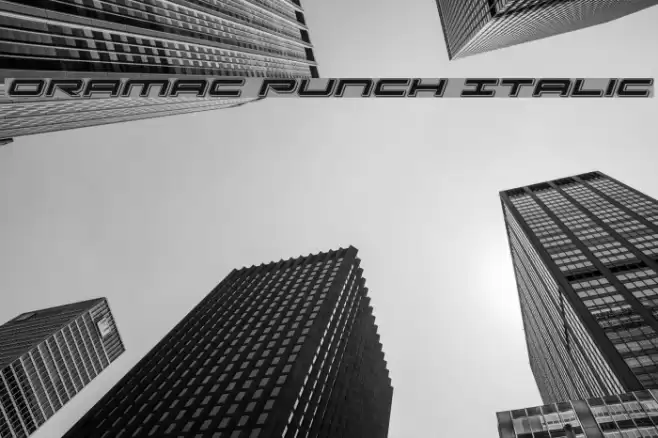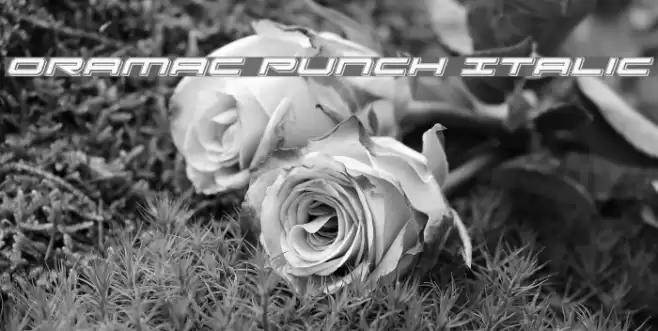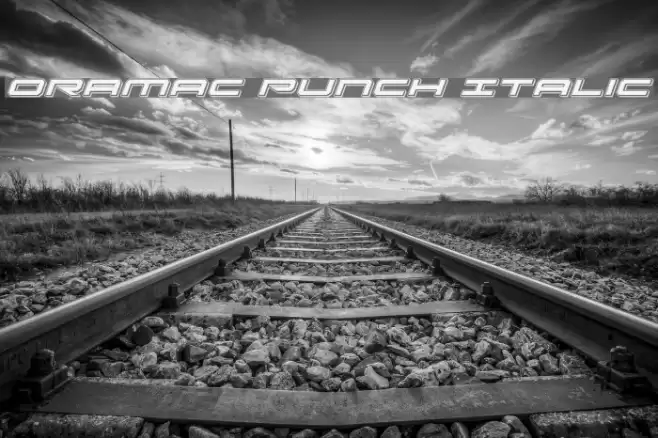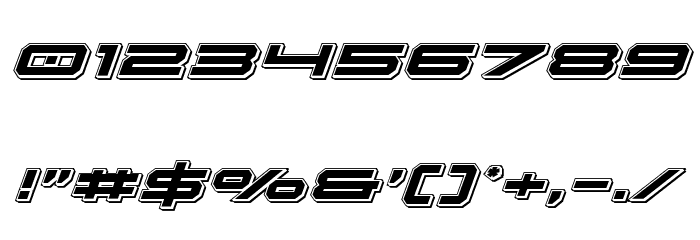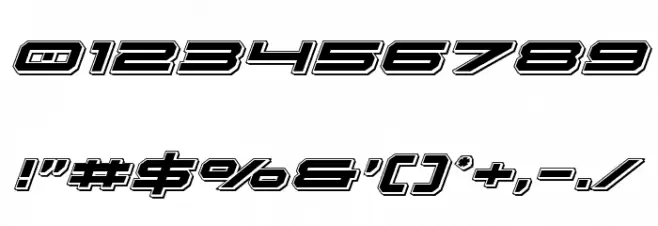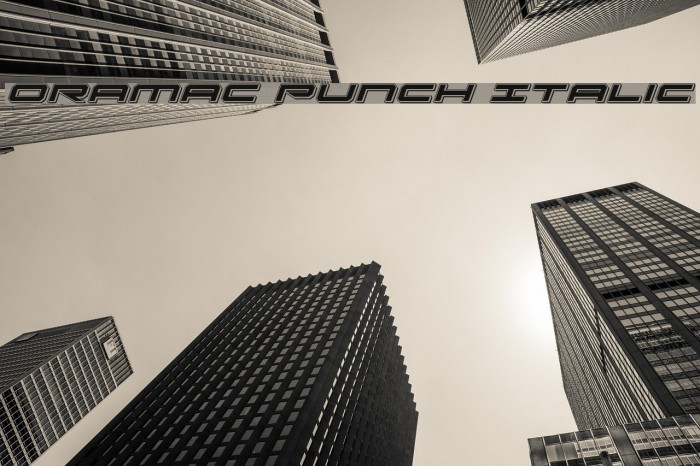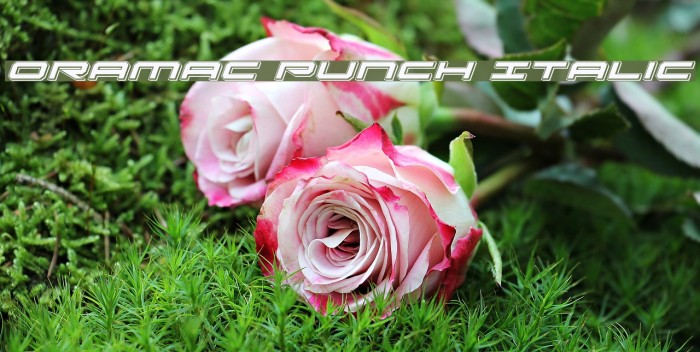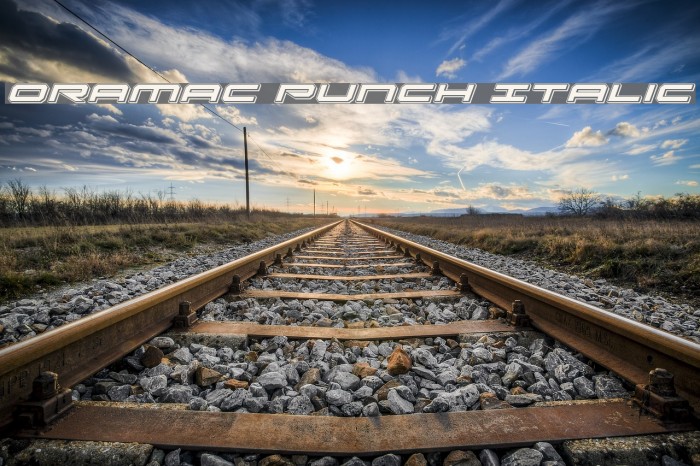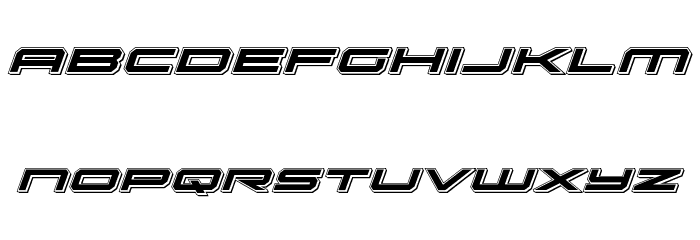
Oramac Punch Italic Font
Oramac Punch Italic Description
This font features a bold, futuristic design with a distinct italic slant, giving it a dynamic and energetic appearance. The characters are outlined with a double-layered effect, creating a sense of depth and dimension. The geometric shapes and sharp angles contribute to its modern and tech-inspired aesthetic. Each letter is crafted with precision, maintaining a consistent style across uppercase, lowercase, numbers, and special characters. The font's unique style makes it stand out, ideal for projects that require a strong visual impact.
A bold, italic, futuristic font with a double-layered outline and geometric design from Uncategorized fonts.
- Proposed Projects: Ideal for technology branding, video game titles, sci-fi movie posters, and modern advertising campaigns.